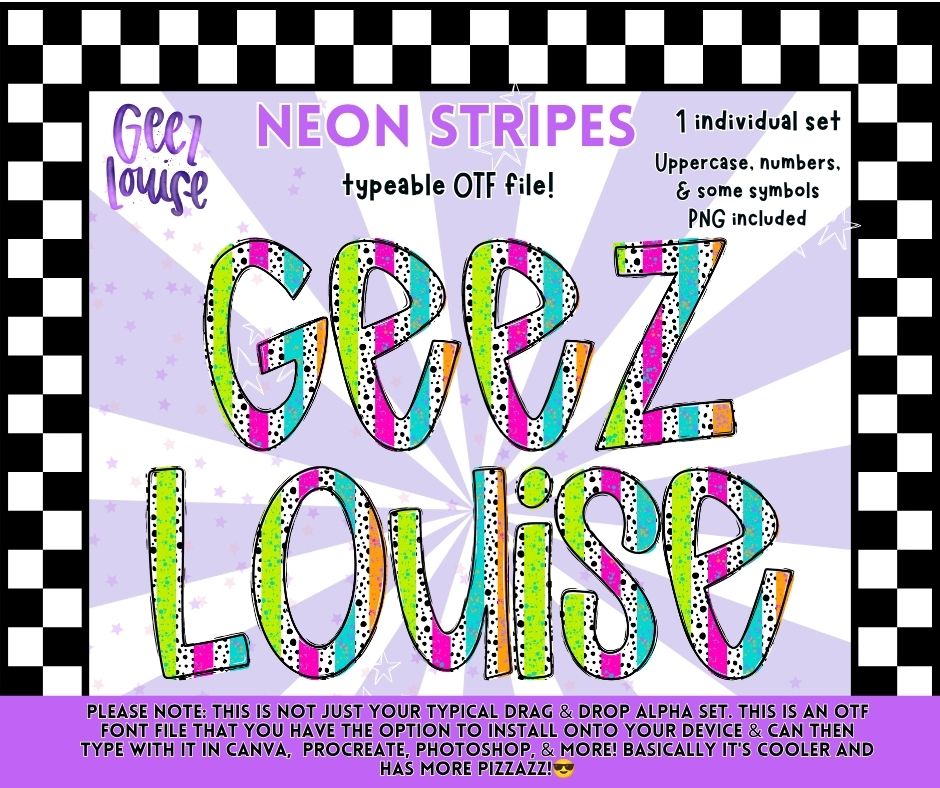
Neon Stripes OTF Font & PNG Alpha | Typeable Font | Individual Alphabet | July 26 Alpha & Combo Drive | Digital Download
✨ Bright, bold, and fun! This Neon Stripes alphabet includes a typeable OTF font plus matching PNG alpha files, giving you the flexibility to type or drag and drop your letters into your designs.